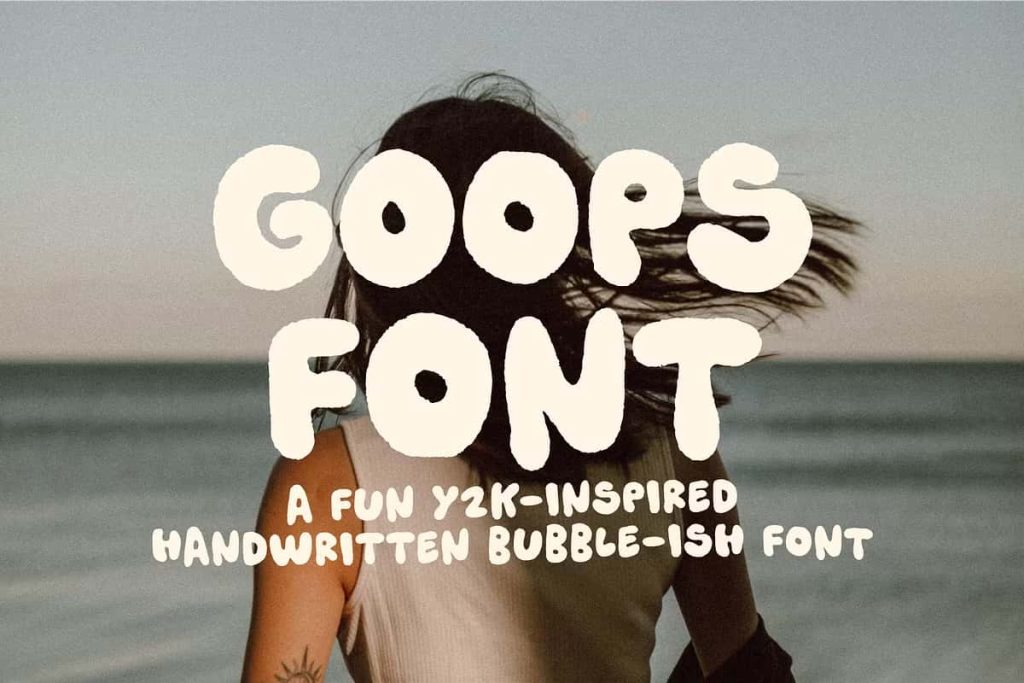
Goops: A Playful Y2K-Inspired Handwritten Bubble Font
Goops is a fun and expressive handwritten bubble font inspired by the bold optimism and playful chaos of Y2K-era design. It brings together rounded letterforms, soft textures, and a slightly goopy personality to create a typeface that feels energetic, creative, and delightfully imperfect. Designed to stand out, Goops turns everyday text into a visual experience filled with character and attitude.
This font embraces imperfection as a design strength. Instead of polished precision, Goops delivers a handcrafted feel that looks drawn by hand, shaped by movement, and finished with texture. The result is a font that feels alive, playful, and unmistakably unique.
Y2K Energy with a Handwritten Bubble Style
Goops draws heavy inspiration from Y2K aesthetics, combining nostalgia with modern creativity. The rounded bubble shapes reference early digital graphics, pop culture lettering, and playful branding from the late 1990s and early 2000s. These influences give the font a bold personality that feels retro while still fitting seamlessly into contemporary design trends.
The handwritten quality adds warmth and approachability. Each letter feels naturally drawn, creating a casual rhythm that makes the font feel personal and expressive. This combination of bubble lettering and hand-drawn style makes Goops ideal for designs that aim to feel fun, youthful, and creative.
Wonderfully Imperfect and Full of Character
Goops celebrates irregularity. Slight variations in shape, texture, and spacing give the font its distinctive handmade look. These details create a sense of movement and personality, making each word feel crafted rather than typed.
The subtle goopy textures add depth without overwhelming the design. They bring a tactile quality that works especially well in bold display settings where character and mood matter most.
Two Styles: Regular and Bouncy
Goops includes two playful styles that allow designers to adjust the tone of their typography. The Regular style offers a balanced and consistent look, making it perfect for headlines, logos, and branding elements that need clarity with personality.
The Bouncy style adds extra movement and whimsy. Letters appear to jump and sway, creating a lively rhythm that enhances playful messaging. This style works especially well for posters, stickers, social media graphics, and designs aimed at younger or trend-focused audiences.
Alternates for Extra Handmade Goodness
To enhance its handcrafted feel, Goops includes alternates that allow designers to customize letter combinations. These alternates prevent repetition and help text feel more organic, especially in longer headlines or repeated words.
Using alternates adds variety and spontaneity, making each design feel unique. This feature is particularly valuable for branding, packaging, and creative projects where individuality matters.
Perfect for Bold, Fun, and Expressive Design
Goops performs best in display applications where energy and personality take center stage. It is ideal for logos, merchandise, posters, social media graphics, packaging, album artwork, and playful branding projects. The font instantly communicates fun and creativity.
Despite its playful nature, Goops remains readable and well-balanced. Its rounded forms and clear shapes ensure legibility even in bold, attention-grabbing layouts.
Goops offers a unique blend of Y2K nostalgia, handmade texture, and playful bubble lettering. Its two styles and alternate characters give designers flexibility while maintaining a cohesive visual identity. The font invites experimentation and encourages expressive typography.
If your project calls for a font that feels fun, imperfect, and full of personality, Goops delivers a creative typographic solution that brings joy and character to every design.